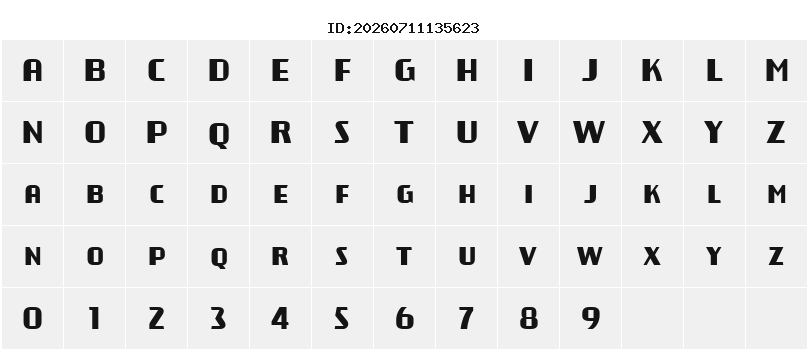
Marianas Preview
• Font Name: Marianas
• Full Font Name: Marianas
• Designer: Ray Larabie
• Manufacturer: Ray Larabie
About Marianas.ttf
Marianas.ttf is a modern, elegant sans-serif font designed for ultimate readability and visual harmony. Perfect for branding, headlines, web design, and print materials.